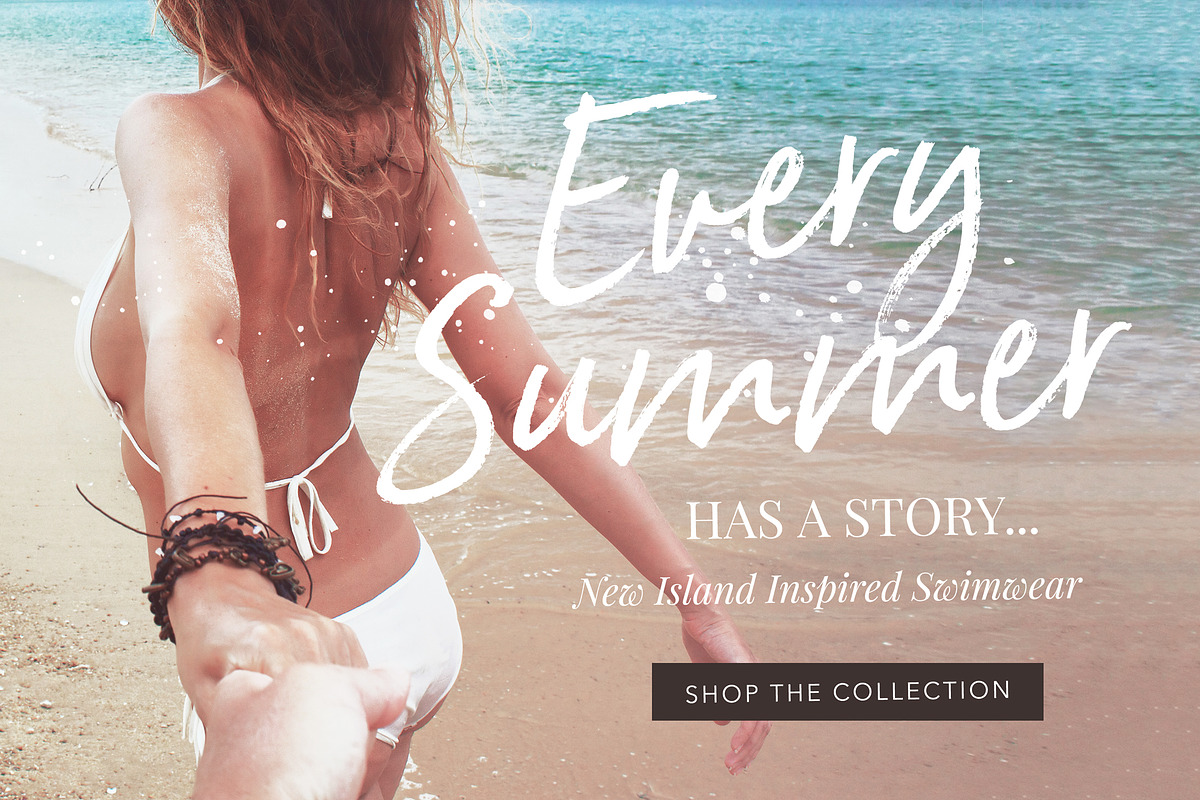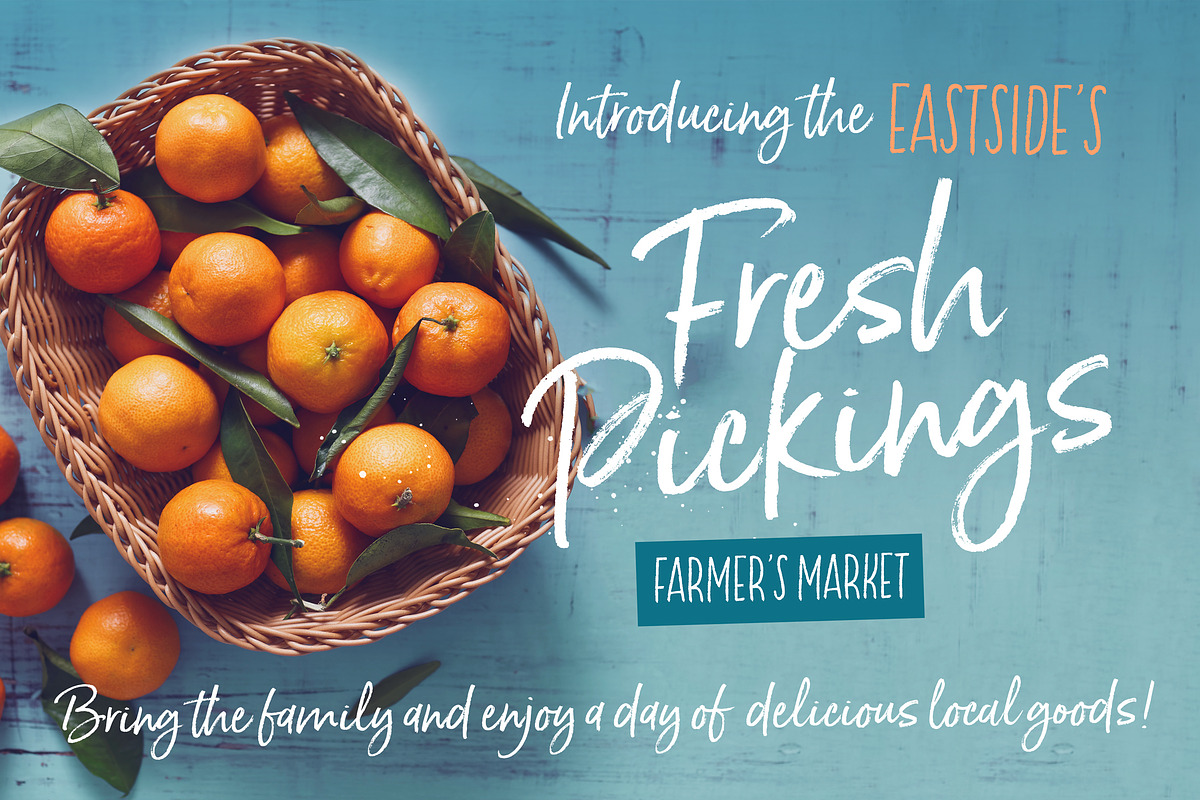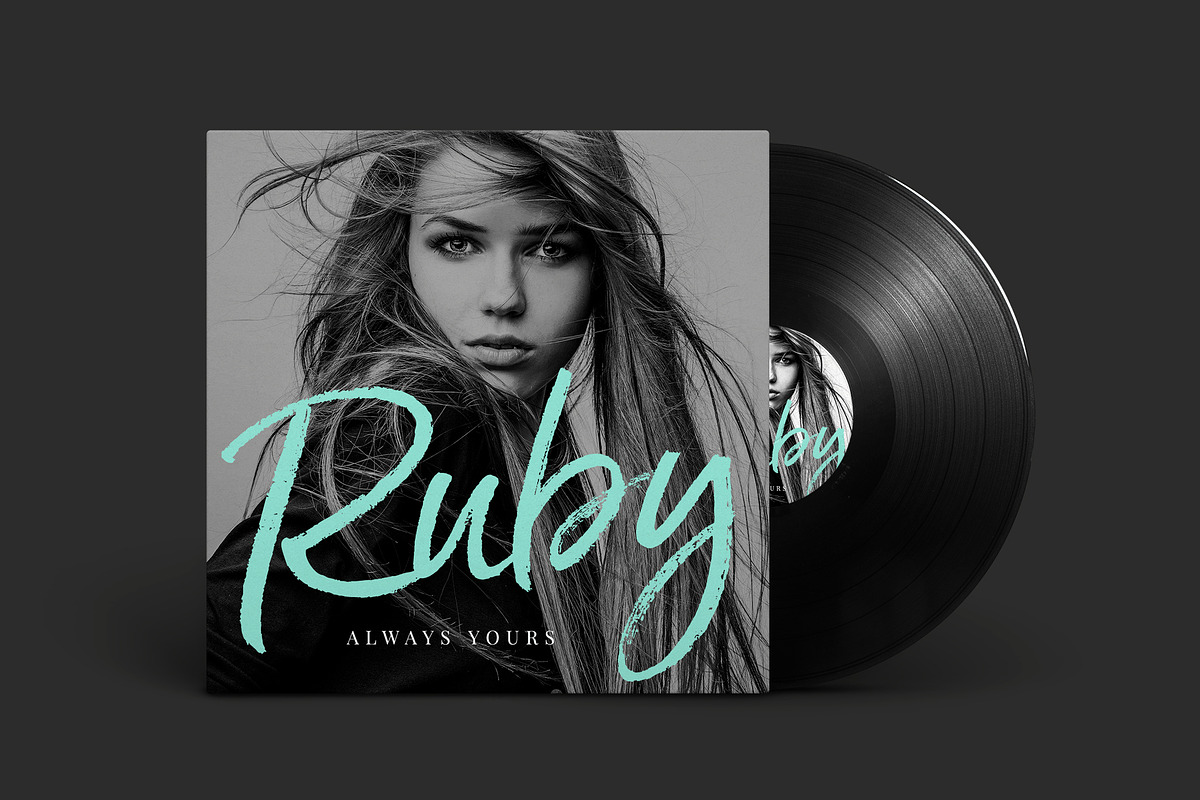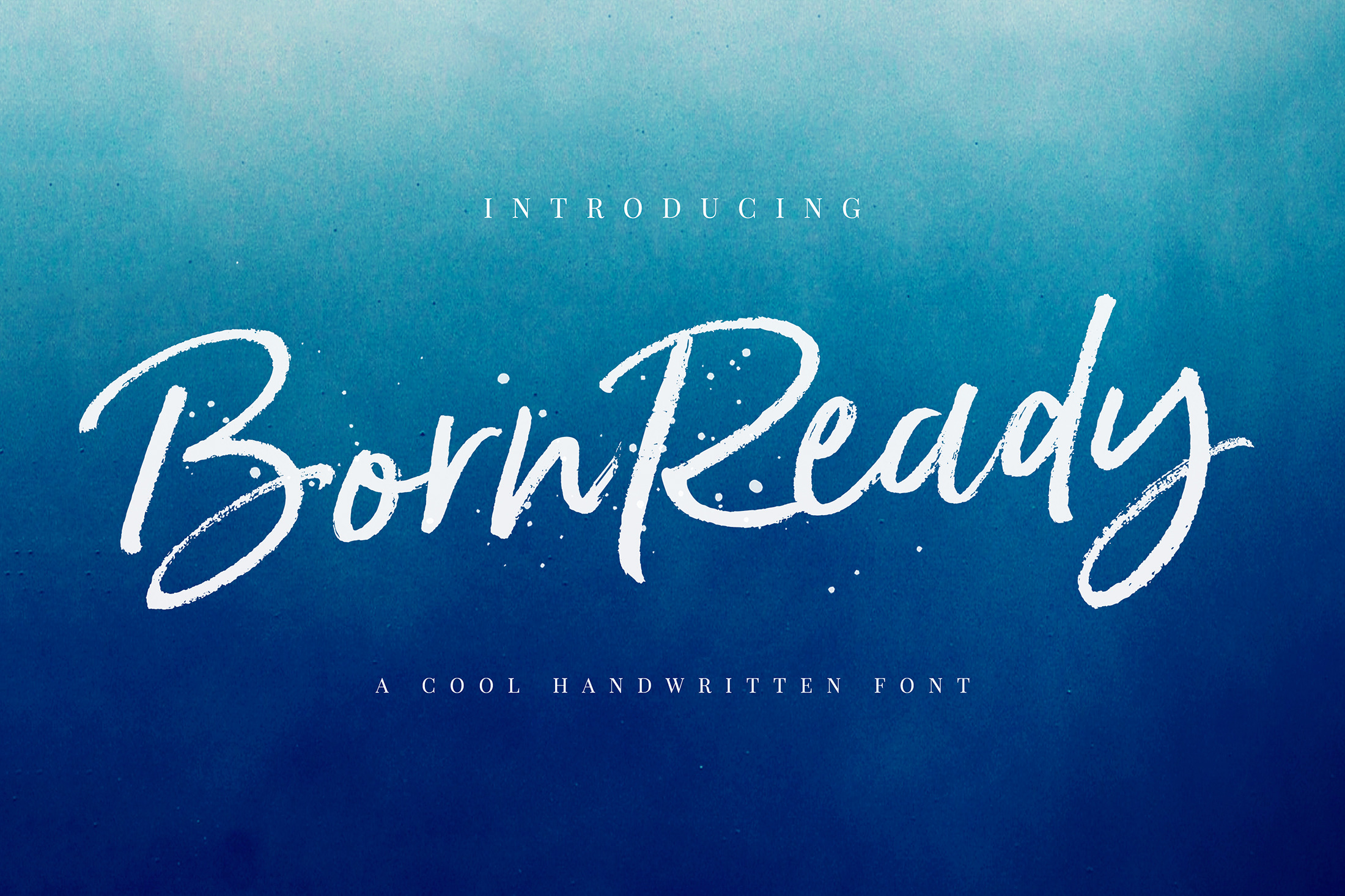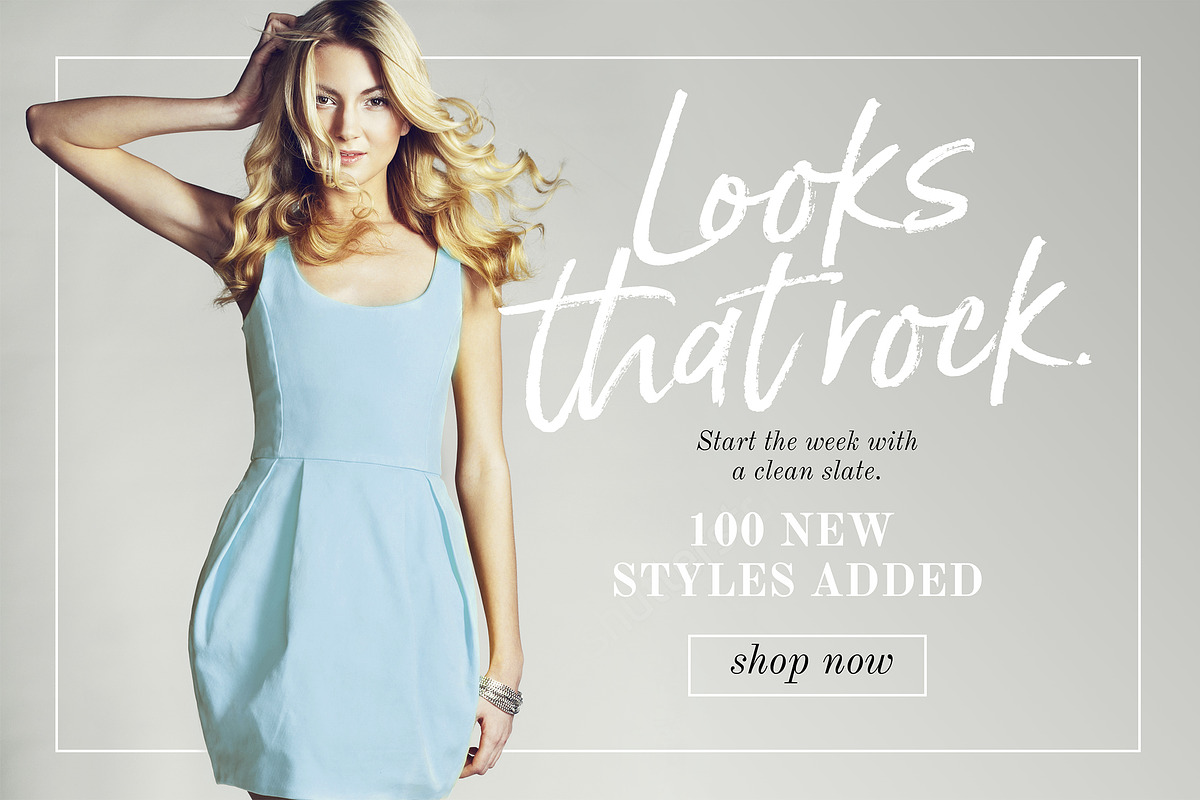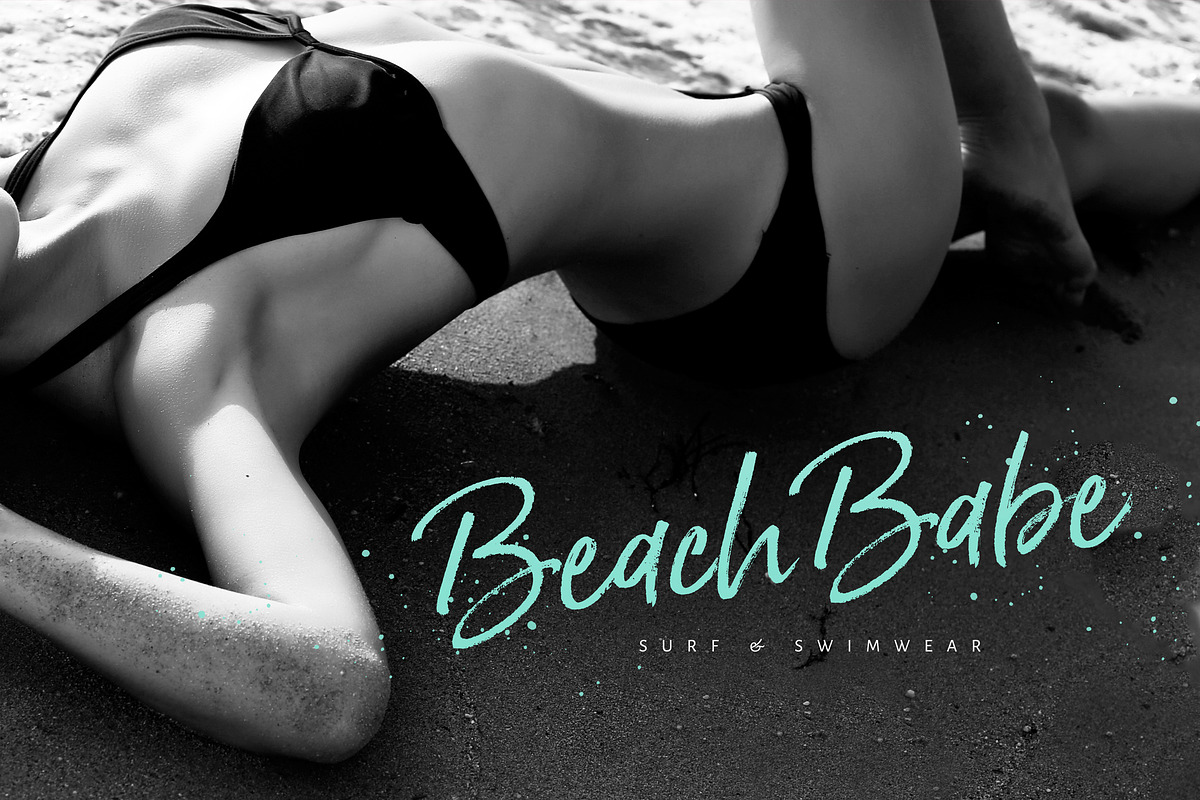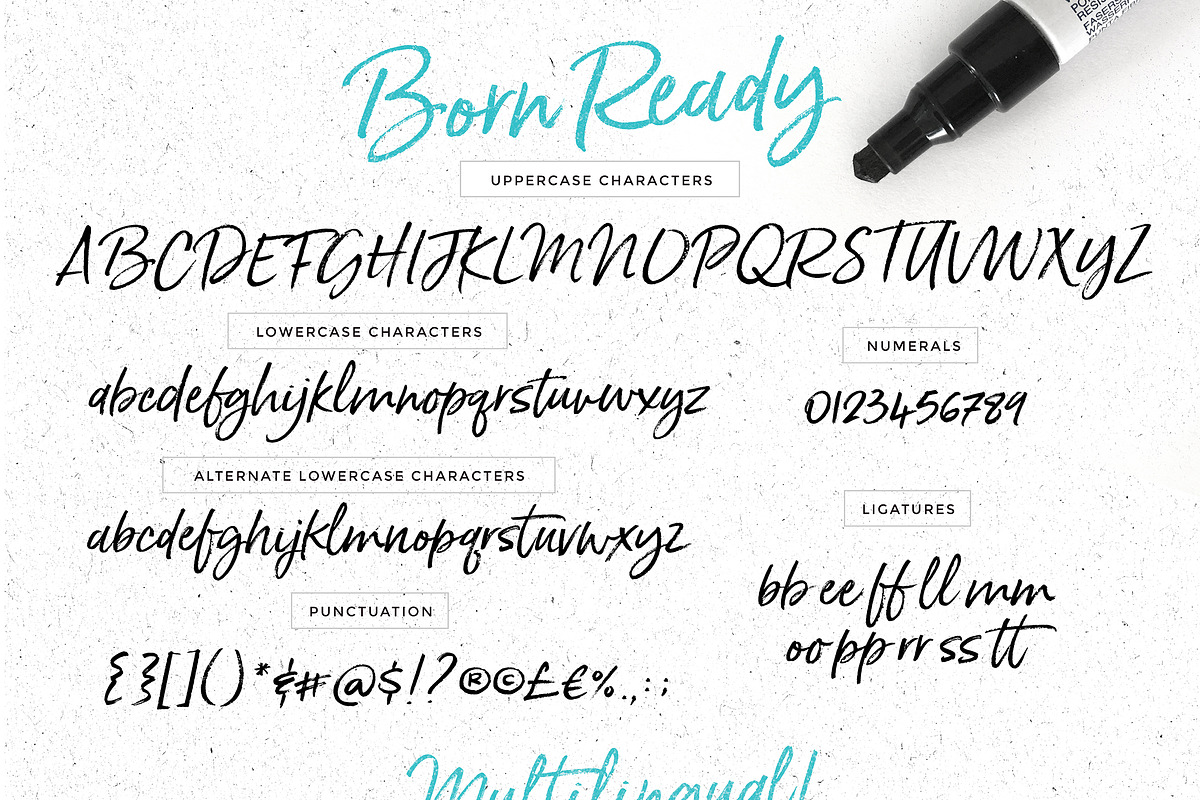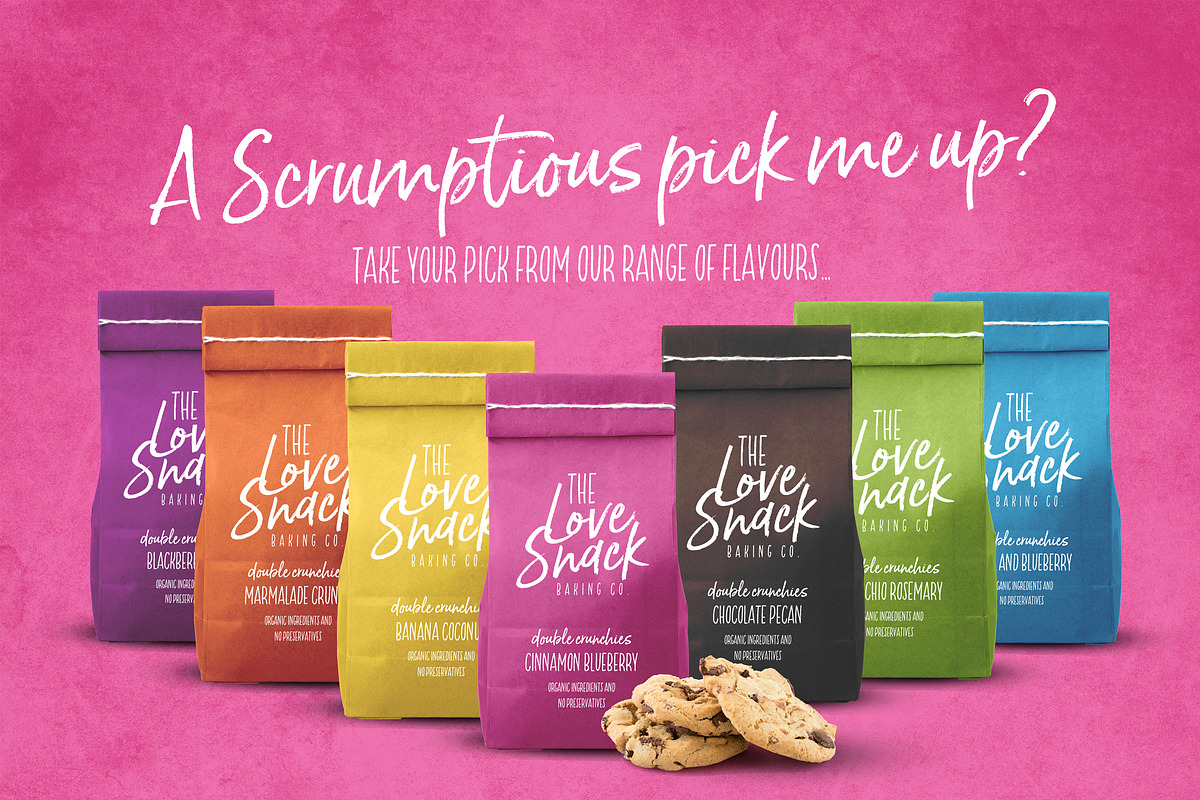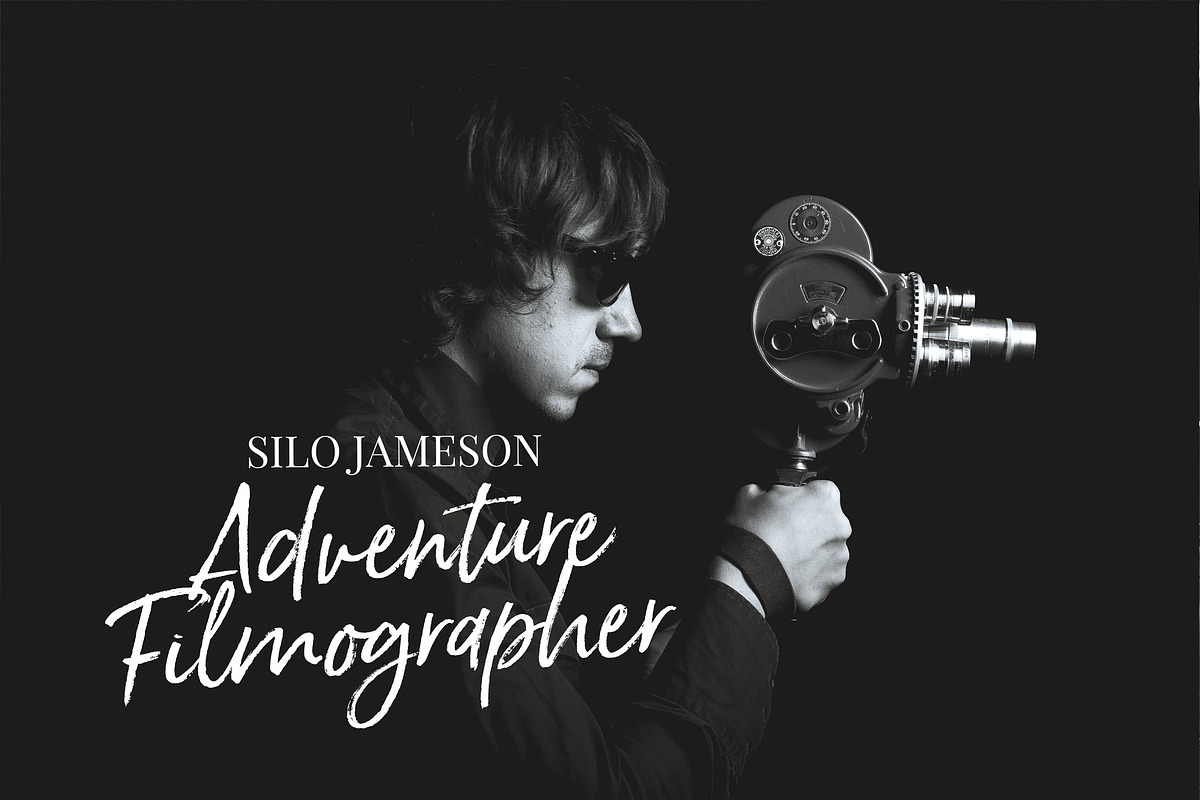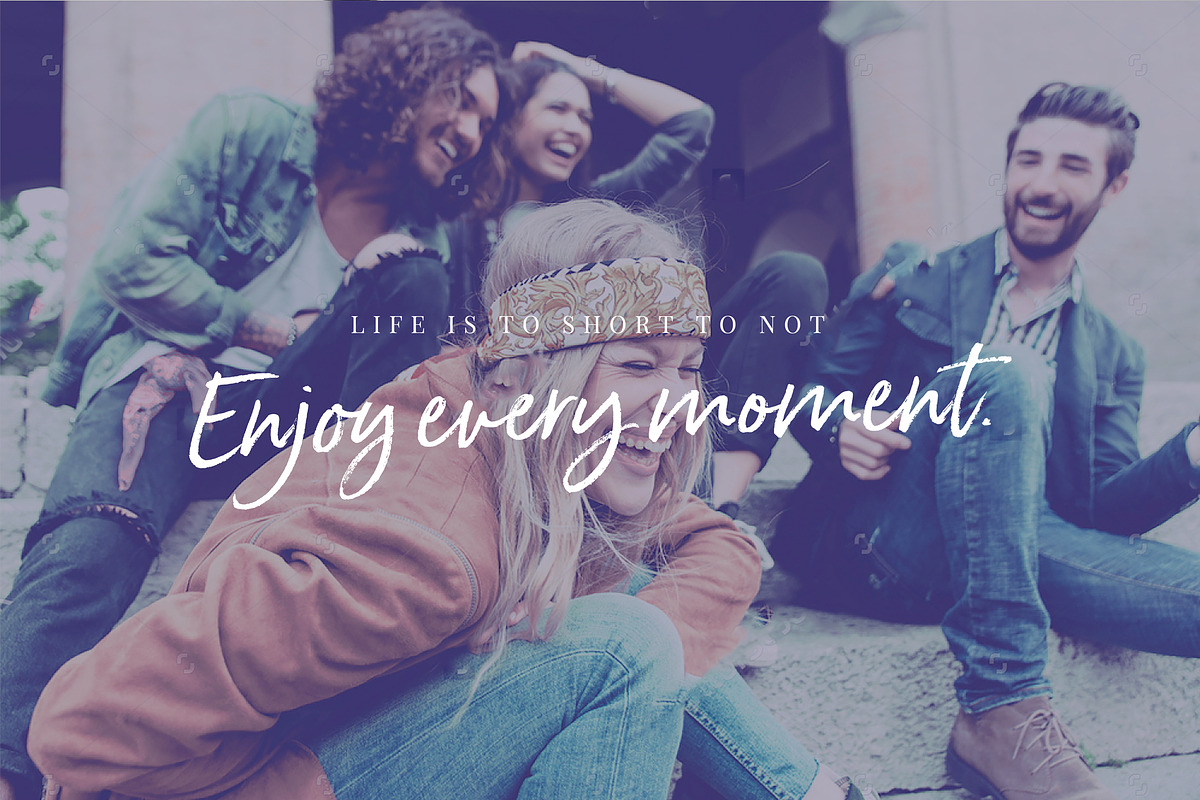
Born Ready Marker Font
Get ready to make a statement with "Born Ready" - A dry marker handwritten font with textured lines and a multiple personalities!
Born Ready comes is various styles - Regular, Slanted , and Upright - each with it's own unique personality to suit the look you are after.
A handy set of alternate lowercase letters lets you get the perfect look you need for your design.